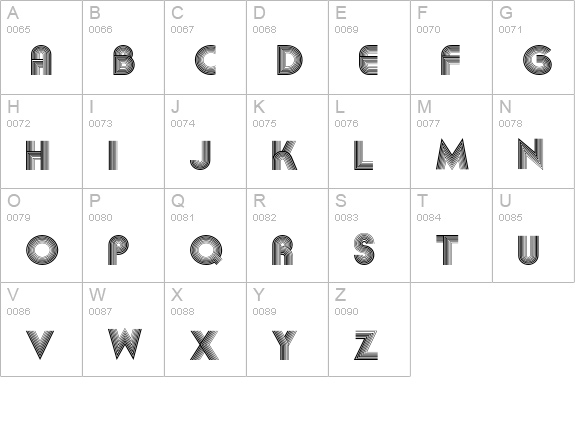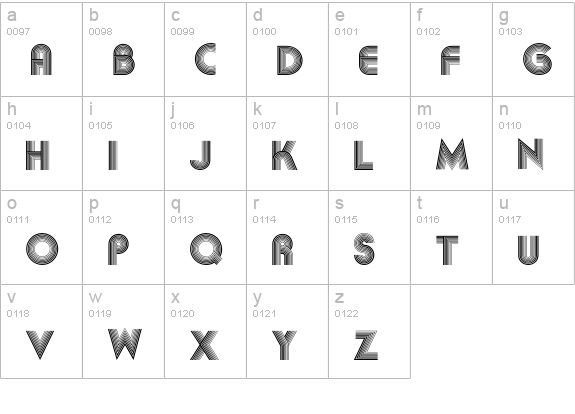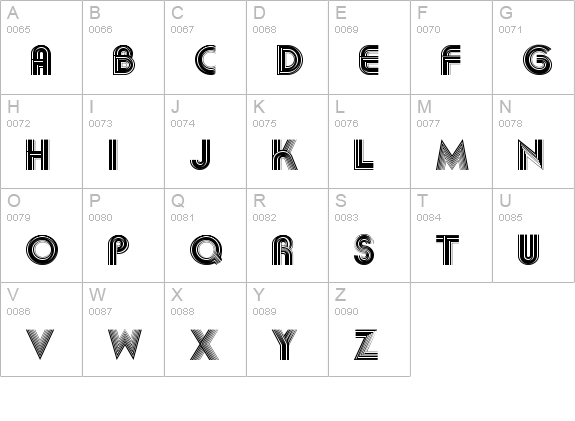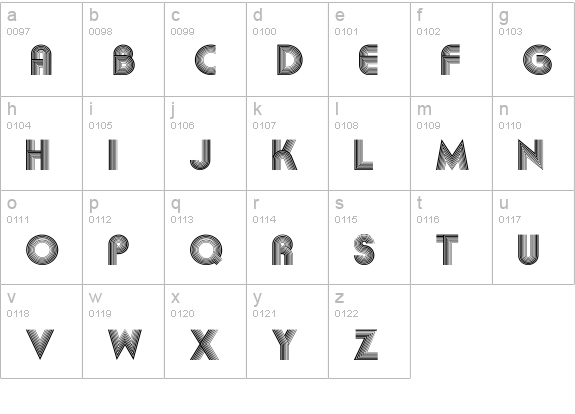
AkiLines Font Details
Discover the elegant and modern beauty of AkiLines font, a versatile typeface that strikes the perfect balance between sophistication and simplicity. With its clean lines and stylish aesthetic, AkiLines is the perfect choice for a wide range of design projects, from branding to editorial layouts. This font features a unique blend of sharp angles and smooth curves, creating a distinctive look that is both eye-catching and easy to read. Whether you're creating a logo, poster, website, or any other design project, AkiLines will make your text stand out with its contemporary and refined appearance. Best of all, AkiLines font is completely free to download at FontsMarket.com. So why wait? Elevate your designs with this stunning typeface today and make a lasting impression with AkiLines.